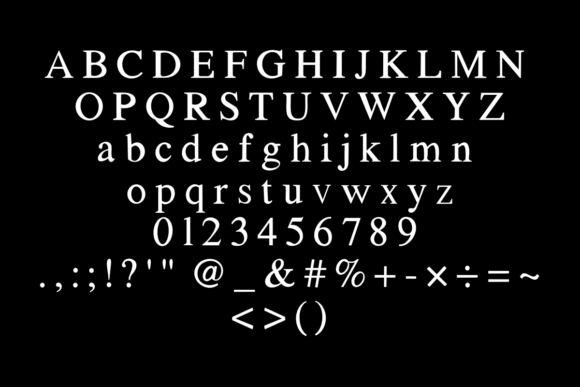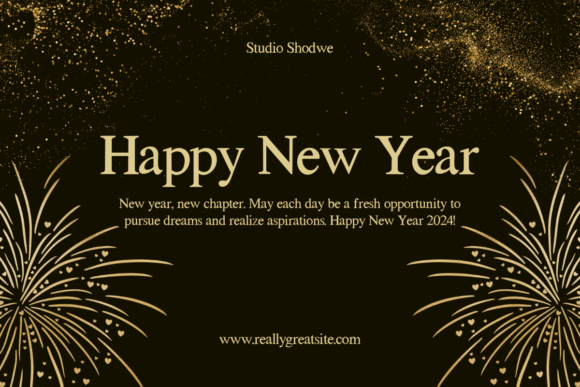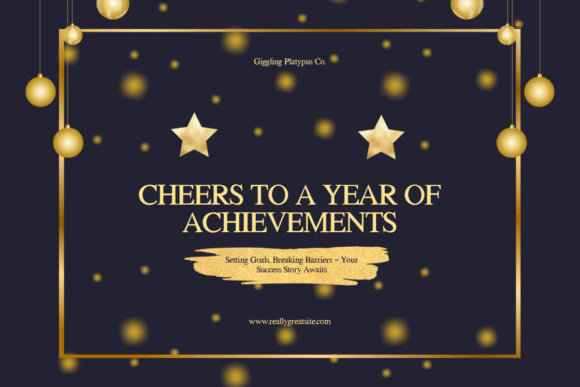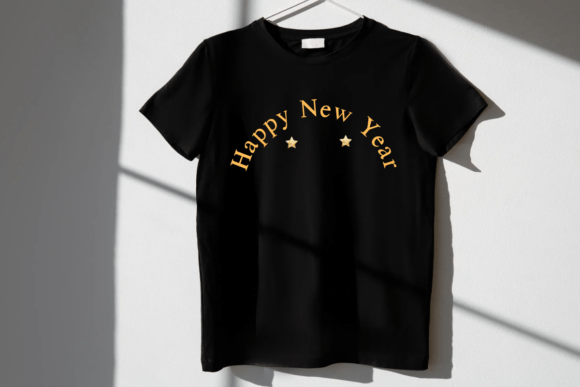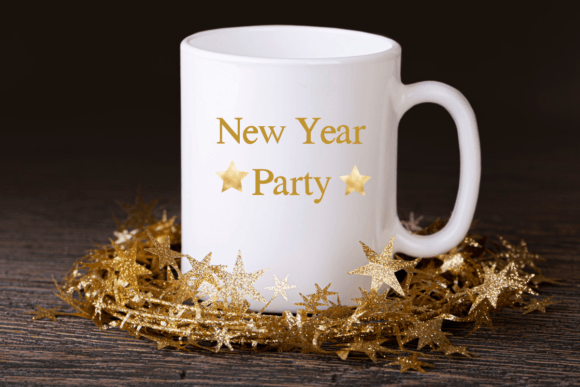
Happy New Year Font: A Cheerful and Festive Display Font for Celebrating the New Year
Are you looking for a font that captures the spirit of the new year? Look no further than the Happy New Year Font! This cheerful and easy-to-read display font is perfect for adding a joyful touch to your cards, decorations, and banners. Its friendly style makes it an ideal choice for designers and crafters who want to create festive and celebratory designs.
What Makes Happy New Year Font So Special?
The Happy New Year Font is designed to bring a smile to your face. Its playful and upbeat style is sure to add a festive touch to any design. Here are some features that make this font stand out:
- Cheerful and Friendly Style: The Happy New Year Font has a warm and inviting style that’s perfect for celebrating the new year. Its friendly demeanor makes it suitable for a wide range of designs, from cards and invitations to decorations and banners.
- Easy to Read: Despite its playful style, the Happy New Year Font is easy to read, even at small sizes. This makes it perfect for use in a variety of designs, from small greeting cards to large banners.
- Highly Versatile: The Happy New Year Font is a highly versatile font that can be used in a wide range of designs. Whether you’re creating a festive card, a celebratory banner, or a decorative decoration, this font is sure to add a touch of joy and celebration.
How to Use Happy New Year Font in Your Designs
The Happy New Year Font is easy to use in your designs, and its versatility makes it suitable for a wide range of projects. Here are some ideas for using this font in your designs:
- New Year’s Cards and Invitations: Use the Happy New Year Font to create festive and celebratory cards and invitations. Add a personal touch with a cheerful message or a fun design element.
- Decorations and Banners: Create eye-catching decorations and banners with the Happy New Year Font. Use it to add a festive touch to your party decorations or to create a celebratory banner for your social media profiles.
- Social Media Graphics: Use the Happy New Year Font to create engaging social media graphics. Add a cheerful message or a fun design element to your graphics to make them stand out.
Tips for Getting the Most Out of Happy New Year Font
Here are some tips for getting the most out of the Happy New Year Font:
- Experiment with Different Sizes and Colors: Don’t be afraid to experiment with different sizes and colors of the Happy New Year Font. Try using it in different sizes and colors to add visual interest to your designs.
- Pair it with Other Fonts: The Happy New Year Font pairs well with other fonts, so don’t be afraid to try pairing it with a complementary font. This can add visual interest and create a unique look.
- Use it in Combination with Other Design Elements: Use the Happy New Year Font in combination with other design elements, such as graphics and images, to create a visually appealing design.
The Happy New Year Font is a cheerful and easy-to-read display font that’s perfect for celebrating the new year. Its friendly style makes it suitable for a wide range of designs, from cards and invitations to decorations and banners. With its versatility and ease of use, this font is sure to become a favorite among designers and crafters. So why not give it a try and add a joyful touch to your designs?
Whether you’re a designer or a crafter, the Happy New Year Font is a great addition to your font collection. So go ahead, get creative, and make your designs shine with the Happy New Year Font!